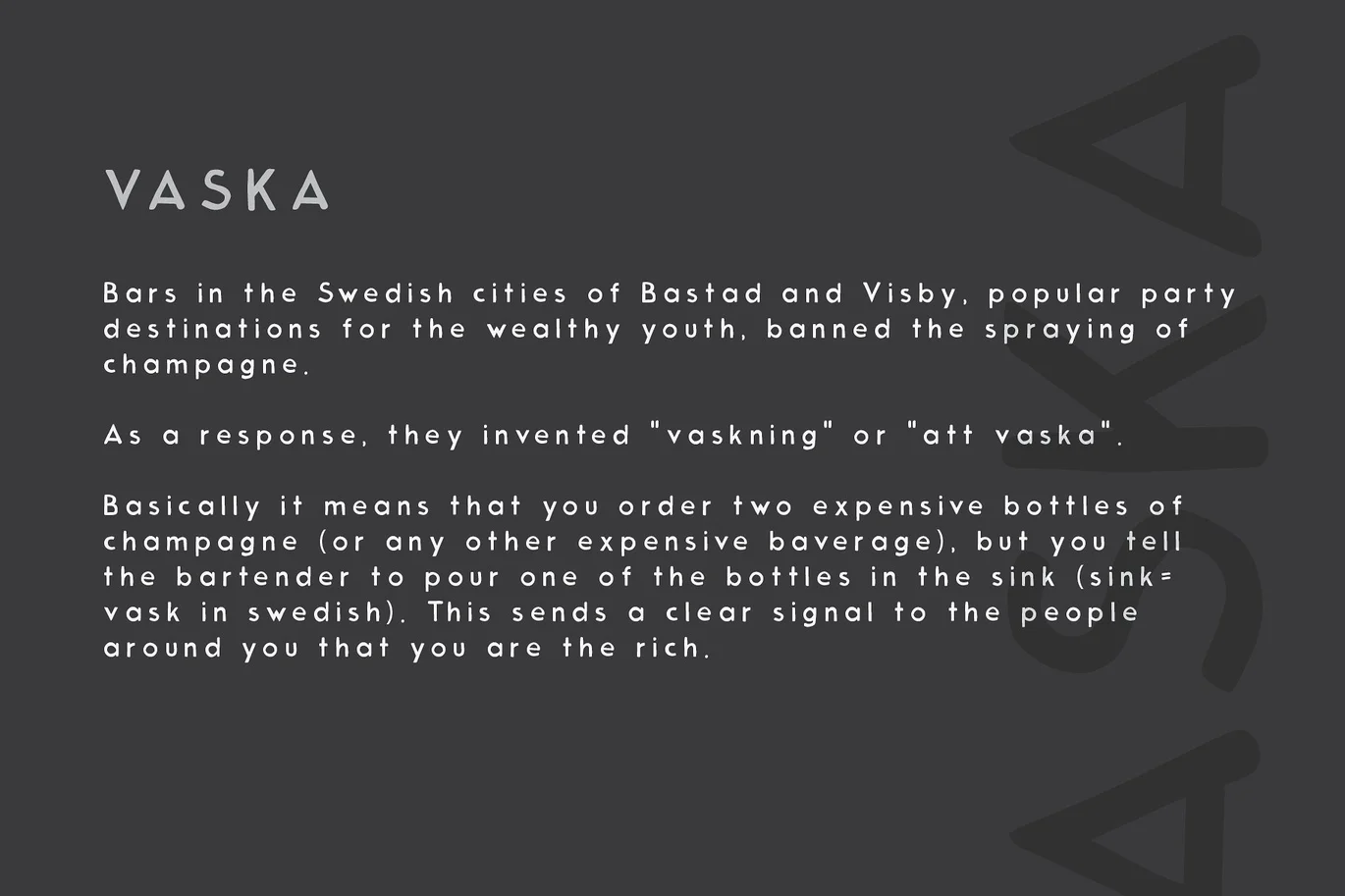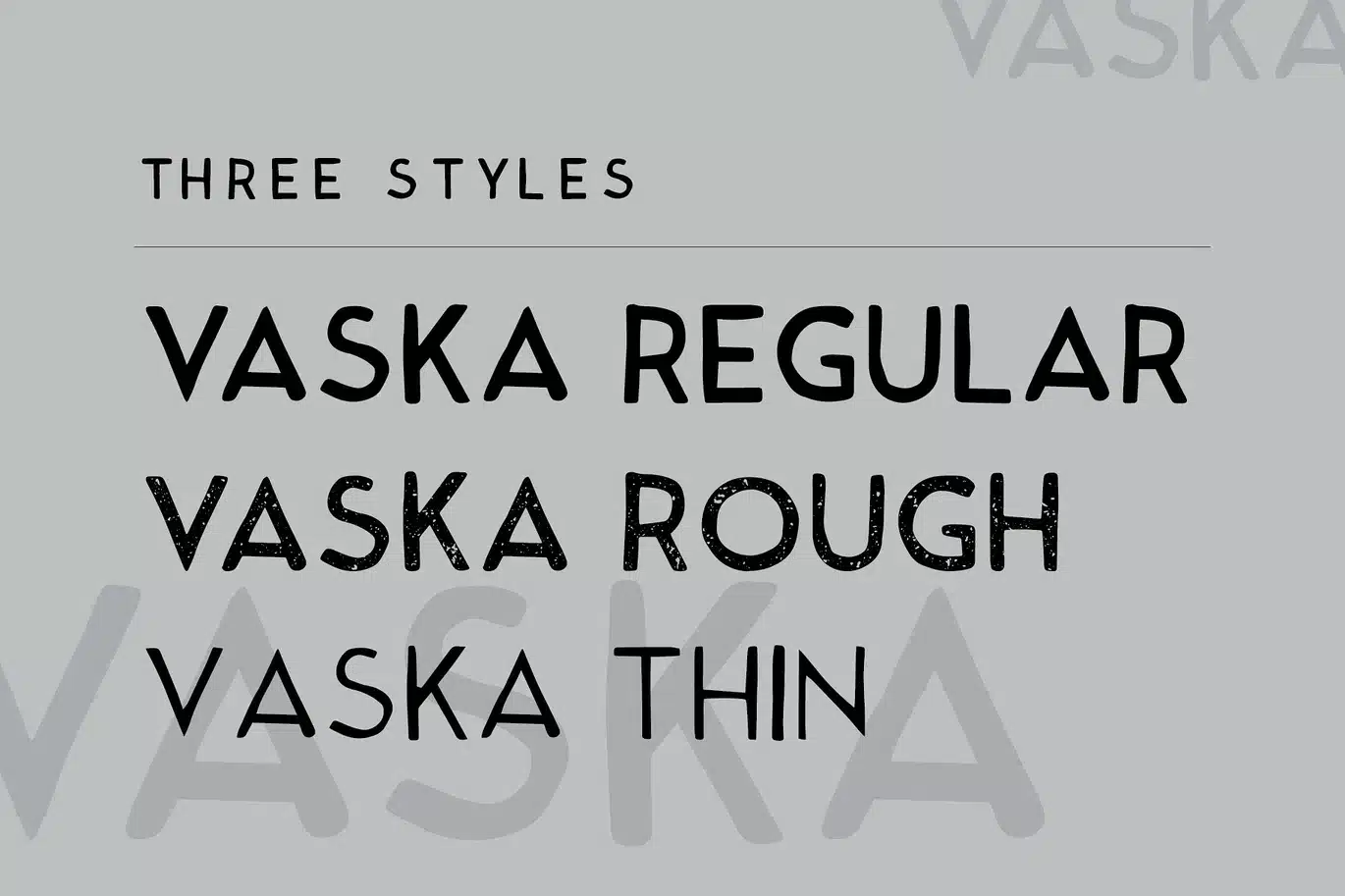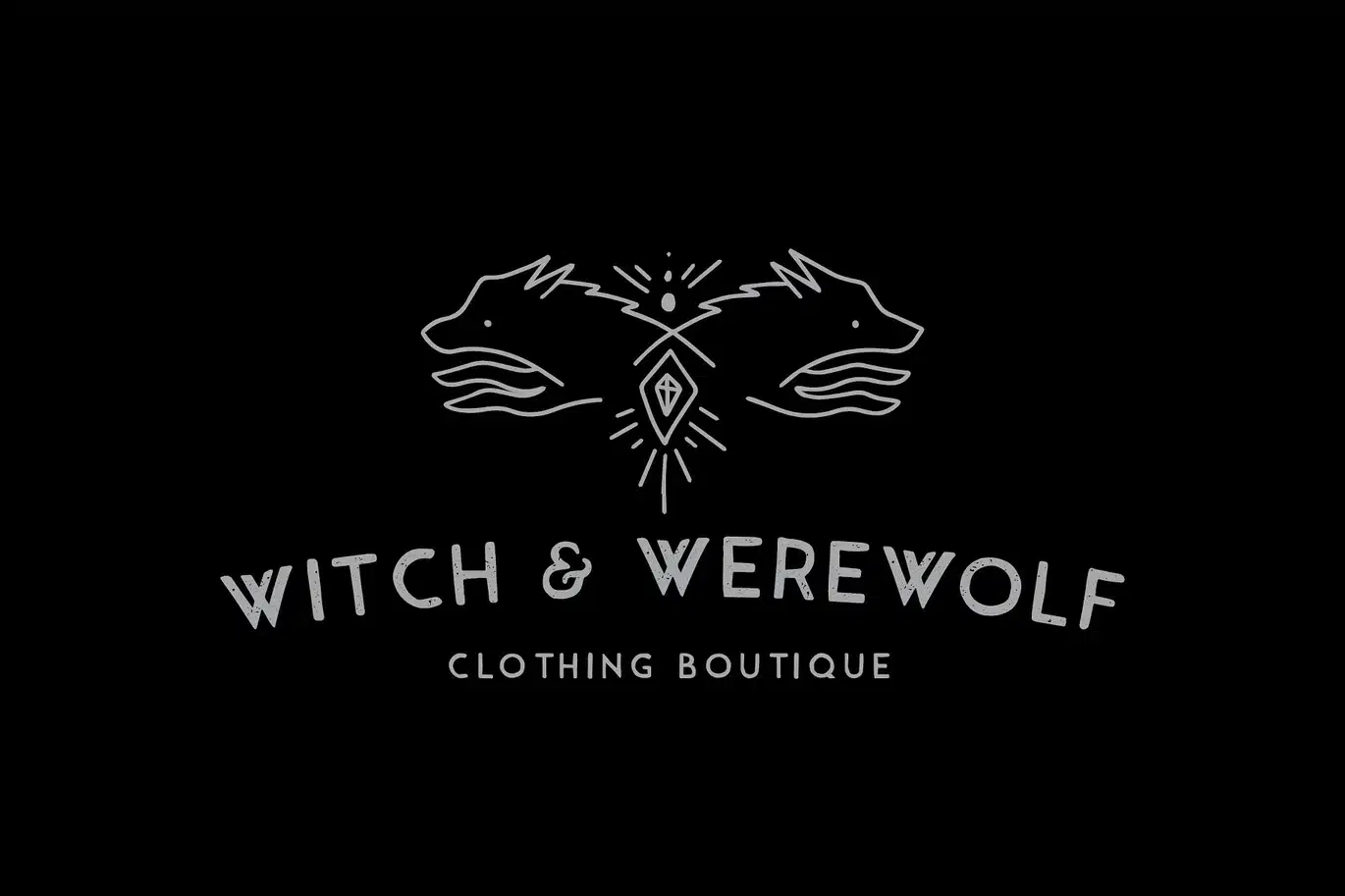
Vaska Font
Vaska: A hand drawn, grotesque font. Paired best with other hand drawn elements or clean, minimalist design, it can also stand alone as headline text or body text. It comes in three weights for maximum style.